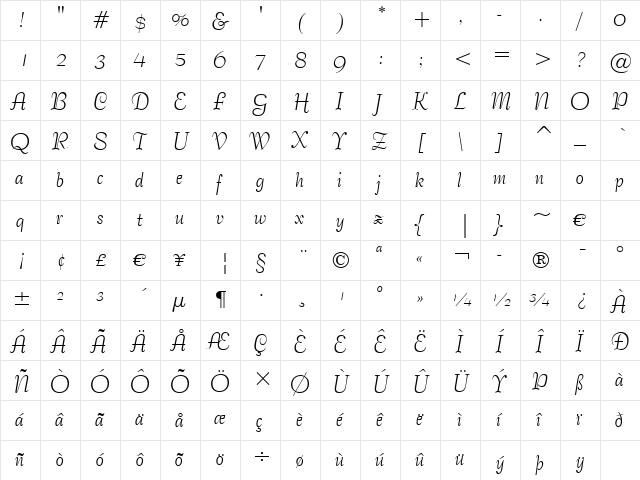
BernhardTango BT Regular
Design Context for BernhardTango BT Typeface
BernhardTango BT is a composed and adaptable typeface that performs quietly and consistently across a wide range of design contexts.